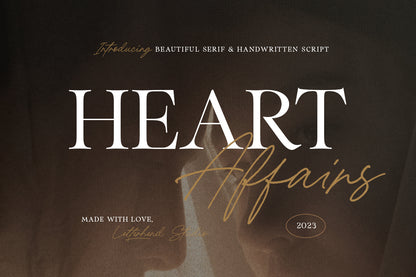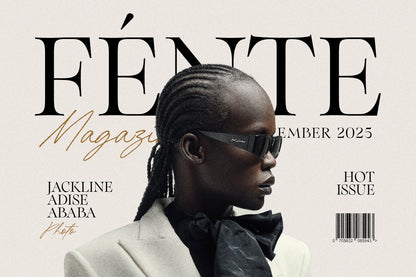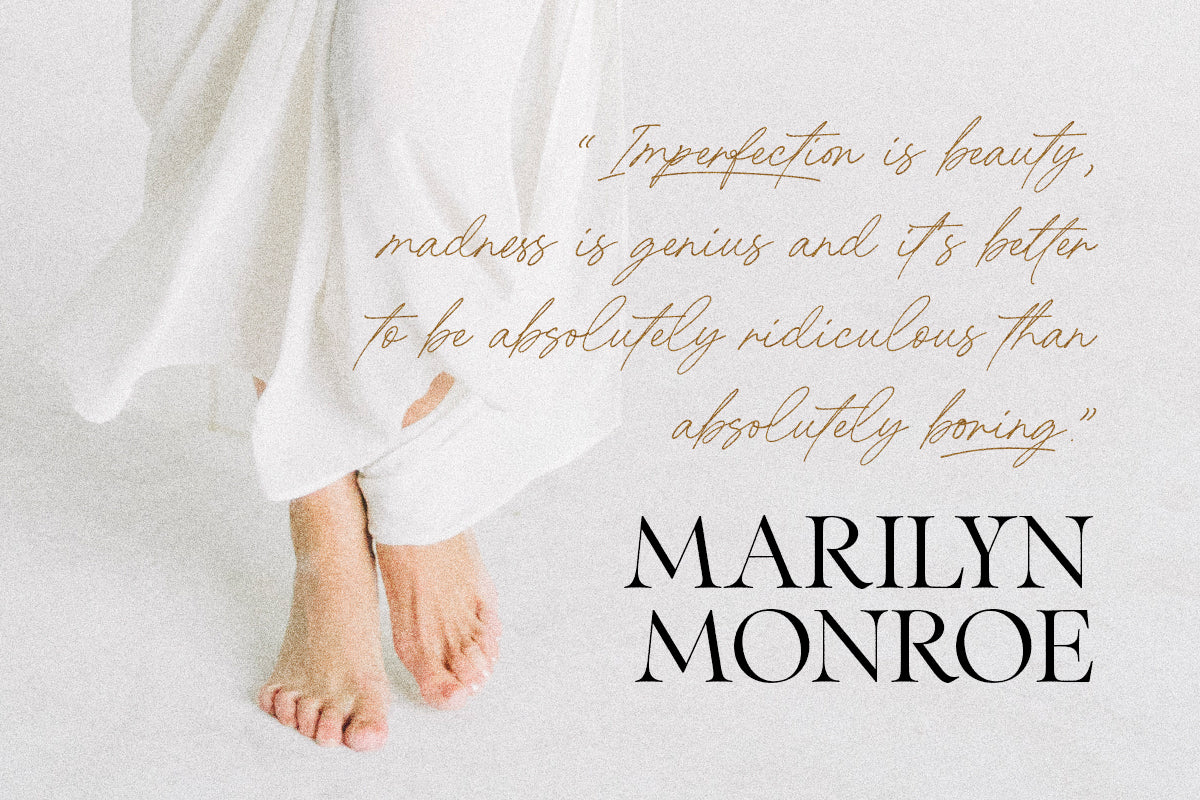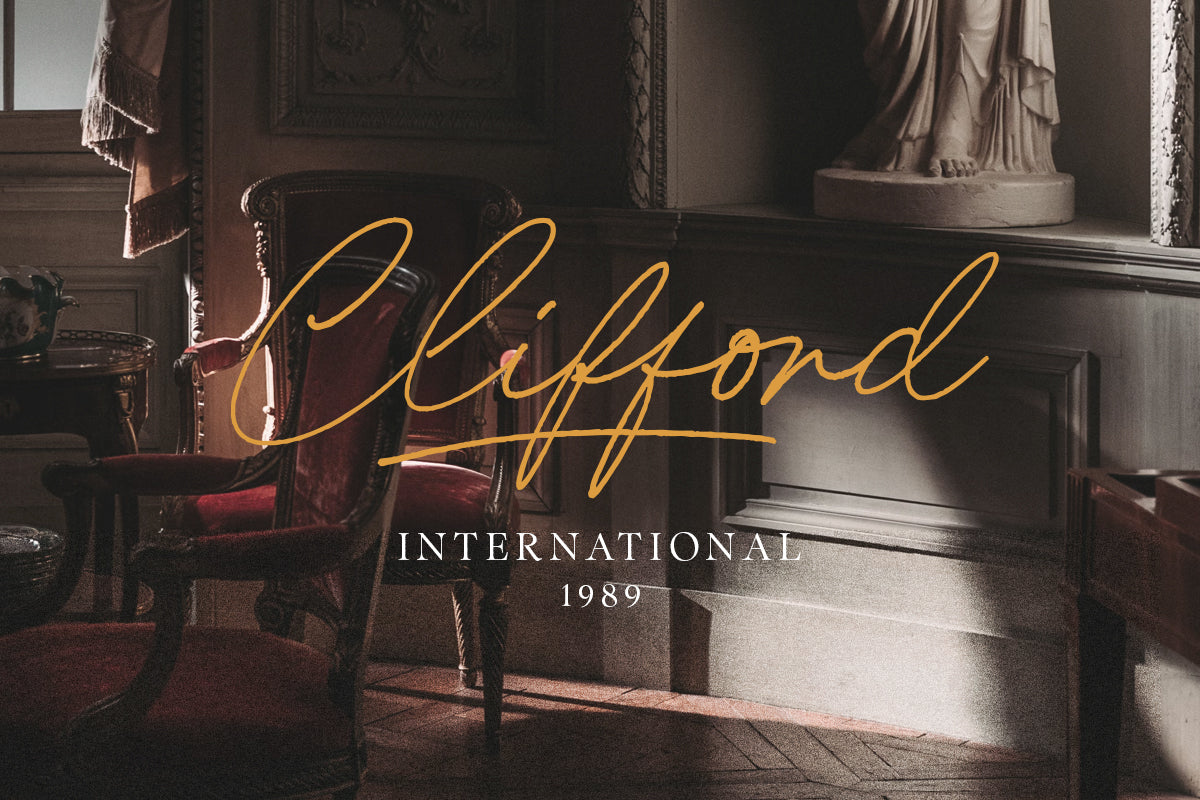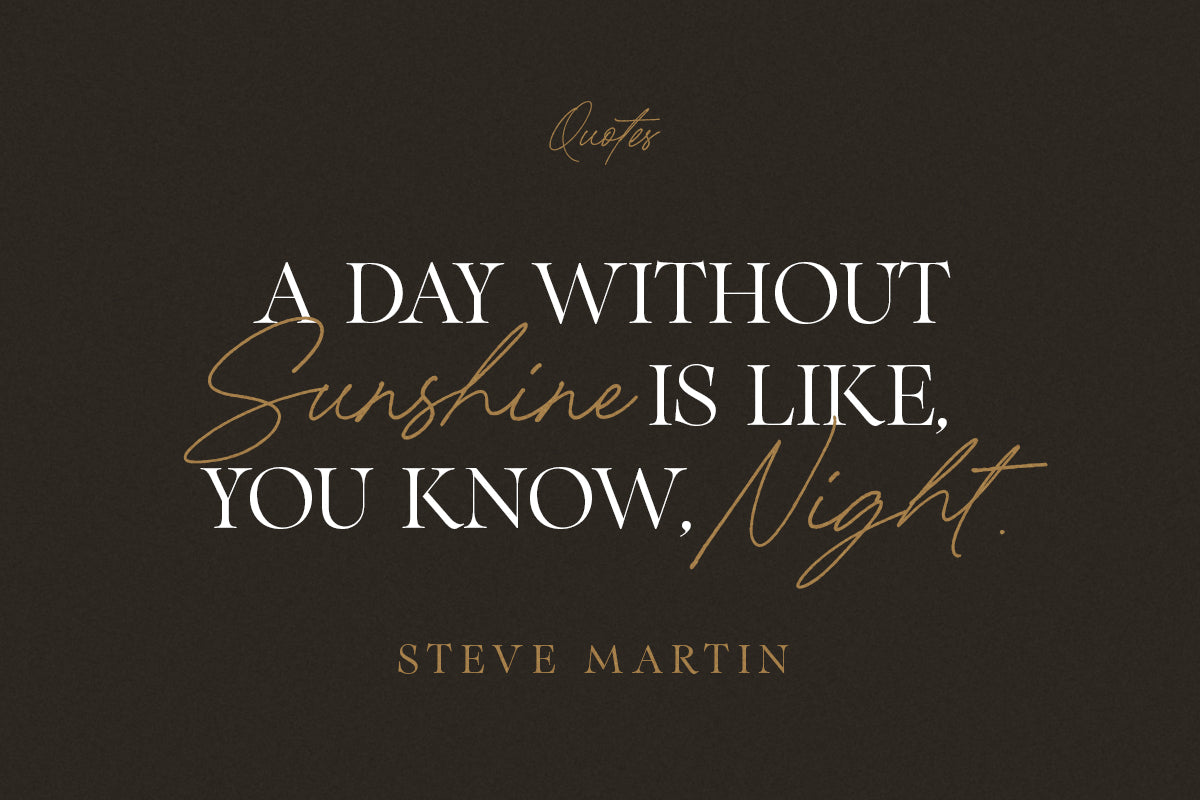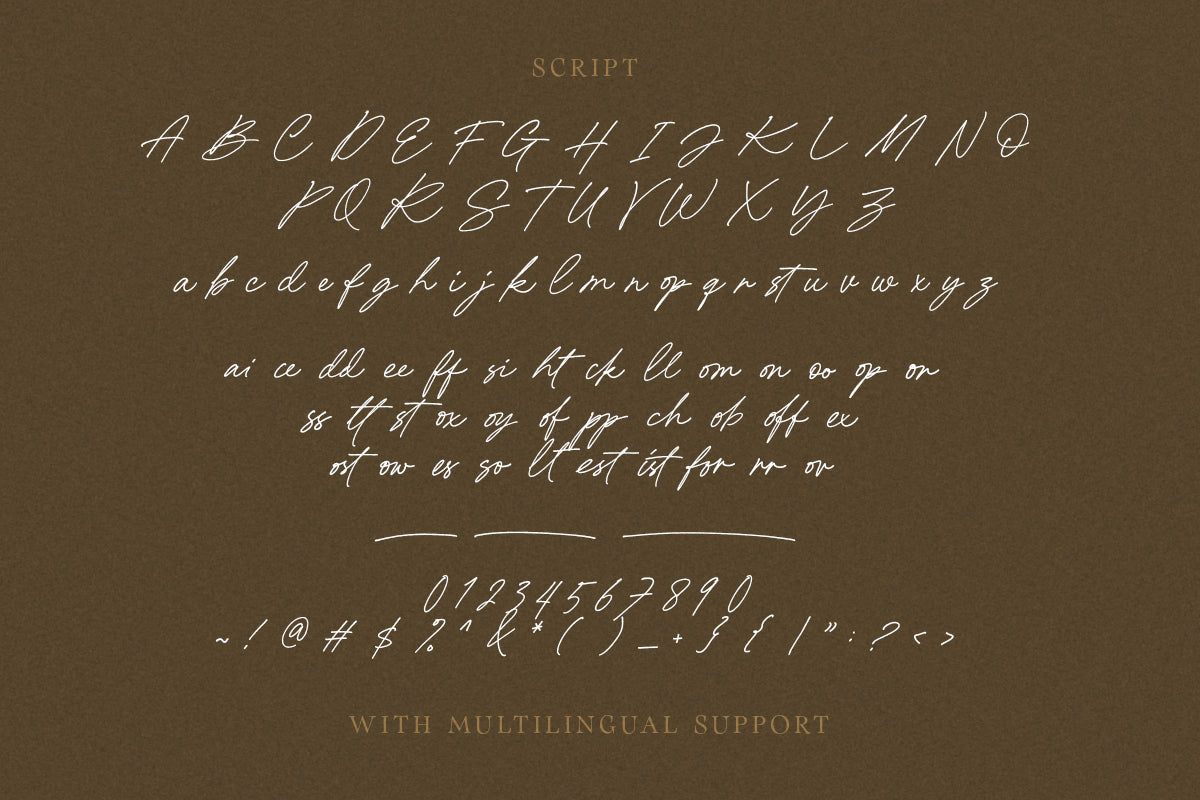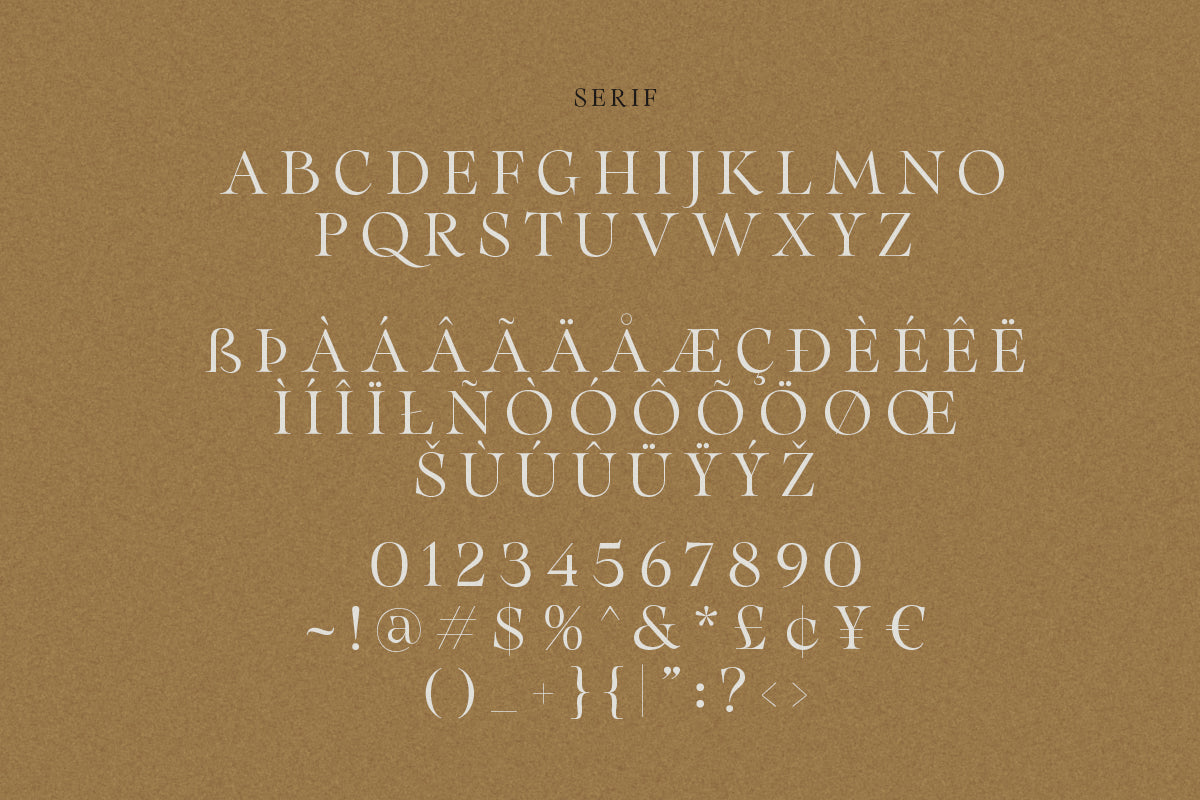
Ladies and gentlemen, please welcome our new font duo - Heart Affairs, where the elegance of a serif font intertwines flawlessly with the beauty of a handwritten script. This font duo is carefully crafted to bring together the classic charm of serifs with the contemporary edge of modern scripts.
Whether you're designing wedding invitations, branding materials, or editorial layouts, Heart Affairs effortlessly elevates your projects with its timeless appeal and stylish versatility.
Uppercase & lowercase
Numbers and punctuation
Alternates & Ligatures
Multilingual